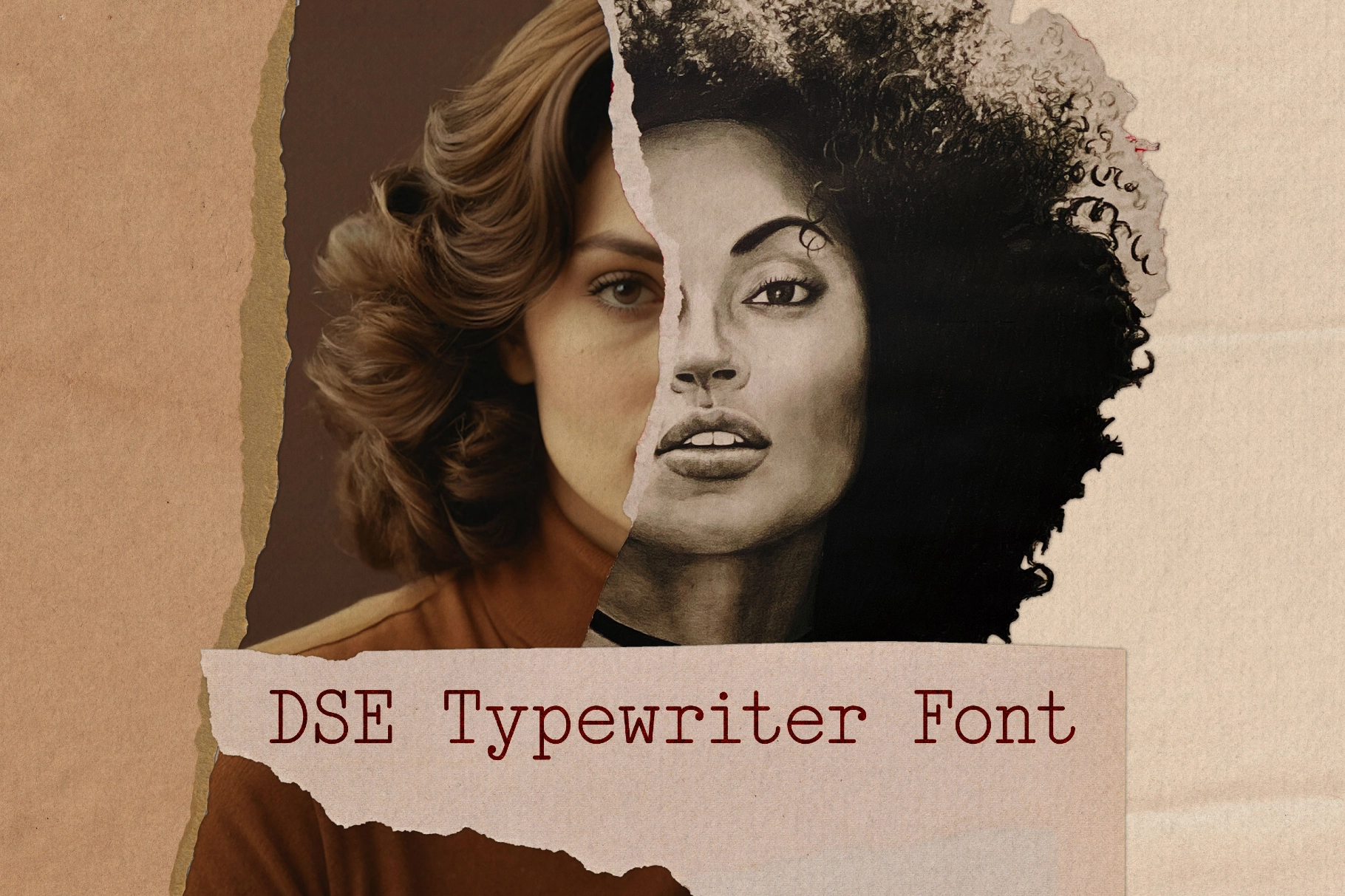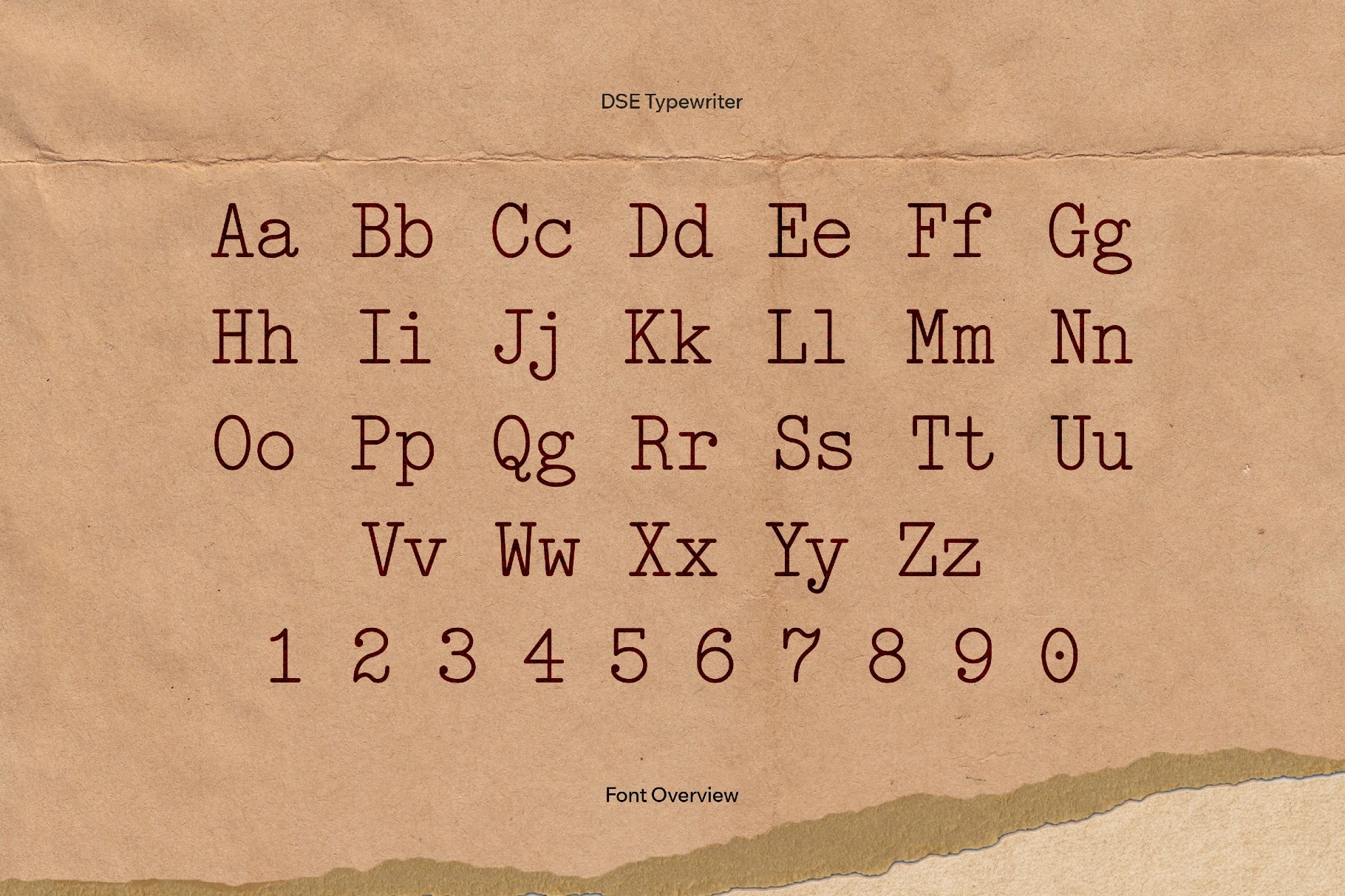
DSE Typewriter Font
DSE serif is classic typewriter: uneven edges, soft misalignments, and the rhythm of metal arms hitting ribbon and paper. The rounded shoulders and steady slab touch into tidy forms, both of which stay readable at small sizes and hold their charm at display scale.
Use it for true-crime covers, historical manuscripts, analog-inspired essays, and editorial pieces. The typeface also suits screenplays, title cards, escape-room graphics, puzzle games, and branding for coffee shops.